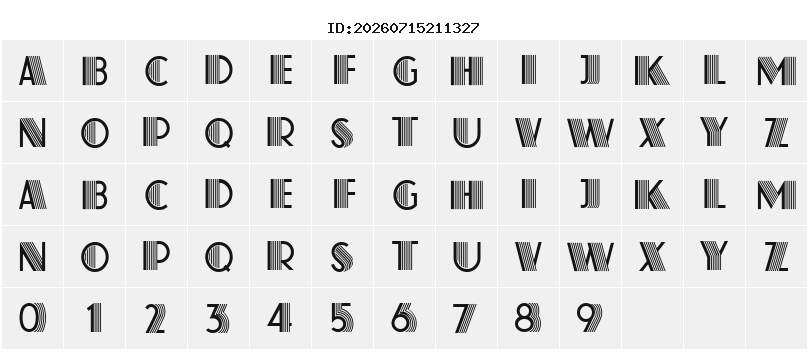
About Atlas.ttf
Atlas.ttf is a modern, elegant sans-serif font designed for ultimate readability and visual harmony. Perfect for branding, headlines, web design, and print materials.